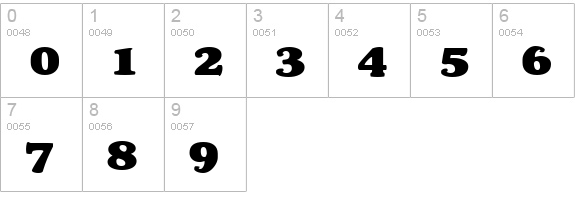
BroadsideExtended Normal Font Details
BroadsideExtended Normal is the standard, neutral variant in the BroadsideExtended typeface family \xE2\x80\x94 well suited to general body text, paragraphs, and standard typographic work.
BroadsideExtended Normal font is a versatile typeface that strikes the perfect balance between elegance and readability. Its clean lines and modern aesthetic make it ideal for a wide range of projects, from branding to editorial design. With its extended character set, this font offers great flexibility for creating unique and engaging typography. Best of all, BroadsideExtended Normal font is free to download at FontsMarket.com. Whether you're a seasoned designer or just starting out, this font is a valuable addition to your collection. Don't miss out on the opportunity to enhance your creative projects with this stylish and contemporary typeface. Download BroadsideExtended Normal today and elevate your designs to the next level!